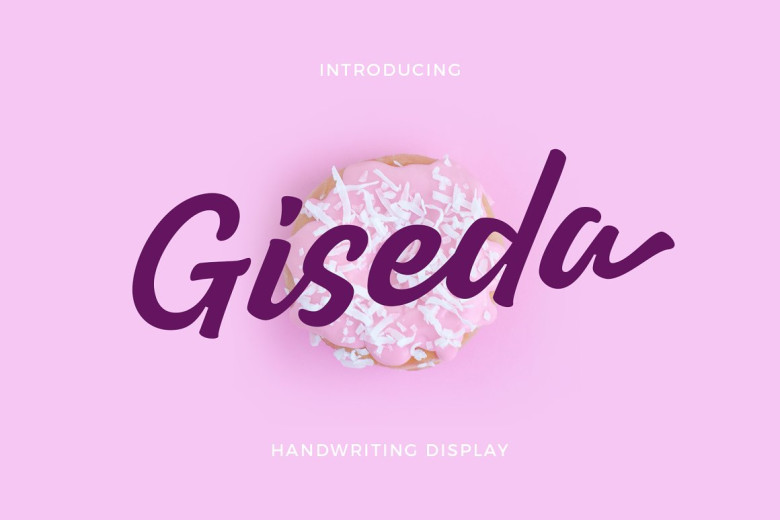
Giseda Font
Giseda is a typeface designed for handwriting that features authentic characters that evoke modernity and elegance, making it suitable for branding, editorial or signage applications. Available both as OpenType(OTF) and TryeType(TTF), Giseda comes in two formats.
Giseda Handwriting Display Font